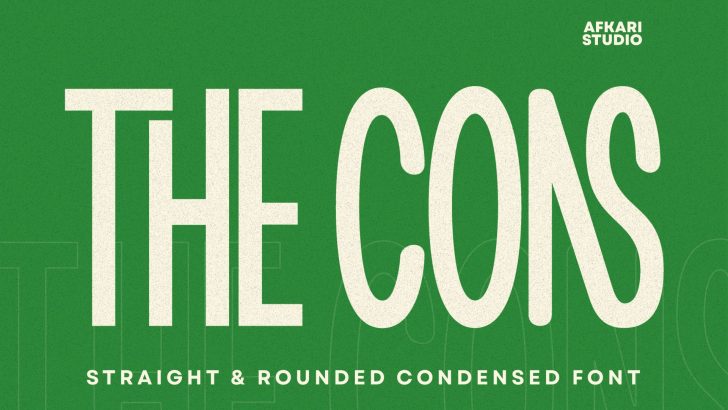
The Cons – Condensed Sans Serif Display Font
The Cons – Condensed Sans Serif Display Font is a strong, compact typeface crafted for designers who need maximum impact with minimal space.